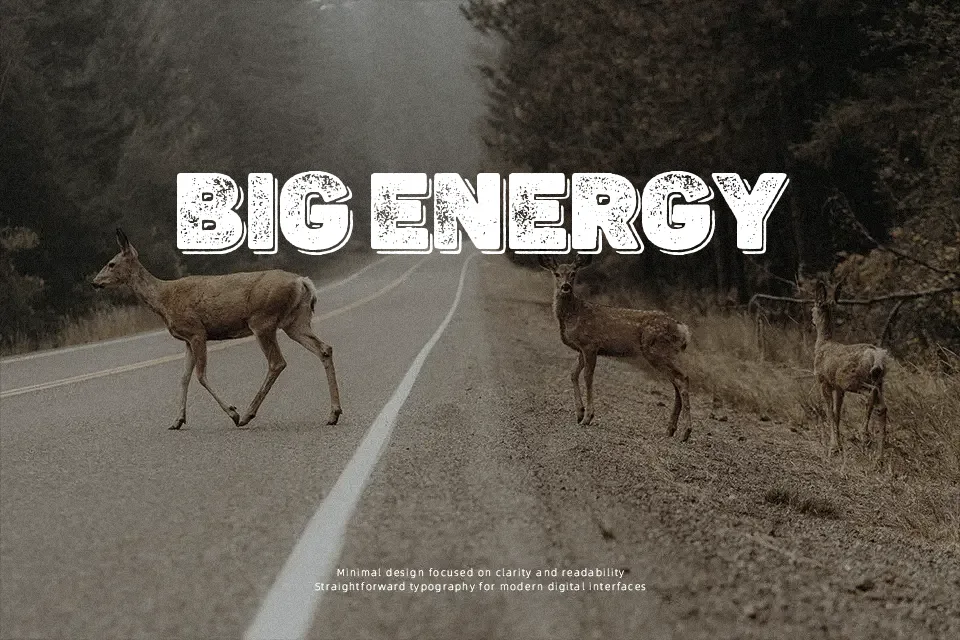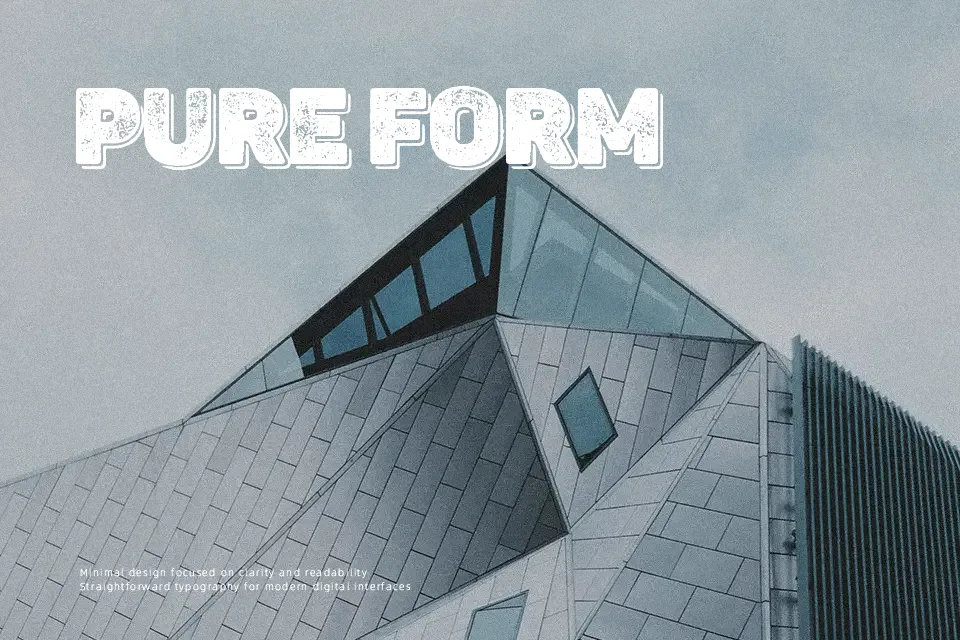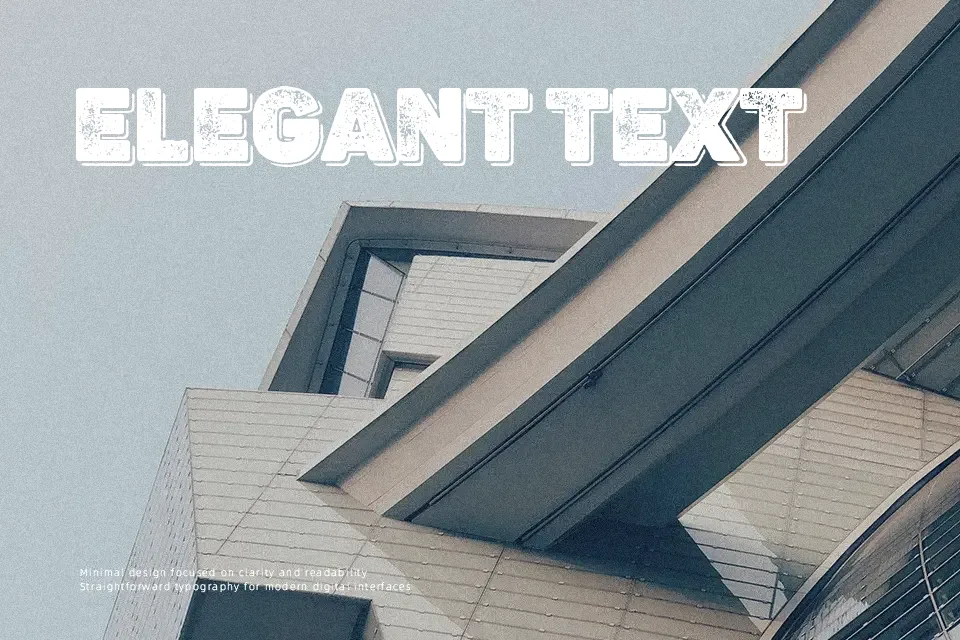
Panton Rust Font
Panton Rust uses heavy, compact letterforms with roughened texture and strong display-oriented proportions. The strokes appear dense and forceful, while the distressed surfaces and layered treatment give uppercase text a deliberately worn finish. Spacing is best suited to short words and broad headline settings, where the shapes remain distinct and the texture has room to register. Numerals and punctuation follow the same robust visual weight. The typeface works well for labels, posters, and apparel graphics that need a vintage edge. At smaller sizes, the irregular surface detail can reduce clarity, so it is better reserved for prominent text than continuous reading.